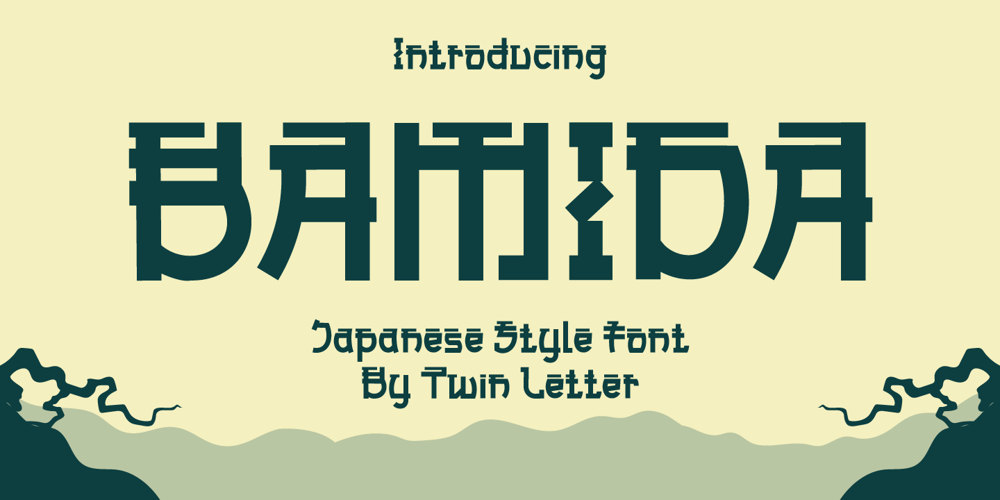
Bamida Faux Font Family was designed by Rozikan and published by Twinletter. Bamida Faux contains 1 styles and family package options. BAMIDA is a Japanese-themed display font that uses the most natural fonts to create a stunning, natural, and elegant visual presentation.If you select this typeface, your project will have a graphic presentation that your audience will enjoy. It will be striking, well-known, and easy to recall.Logotypes, food banners, branding, brochure, posters, movie titles, book titles, quotes, and more may all benefit from this font.Of course, using this font in your various design projects will make them excellent and outstanding; many viewers are drawn to the striking and unusual graphic display.Start utilizing this typeface in your projects to make them stand out.